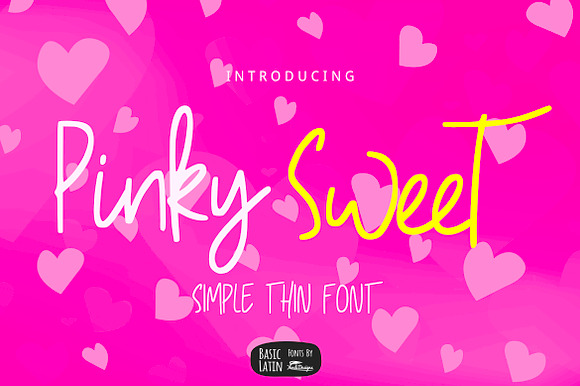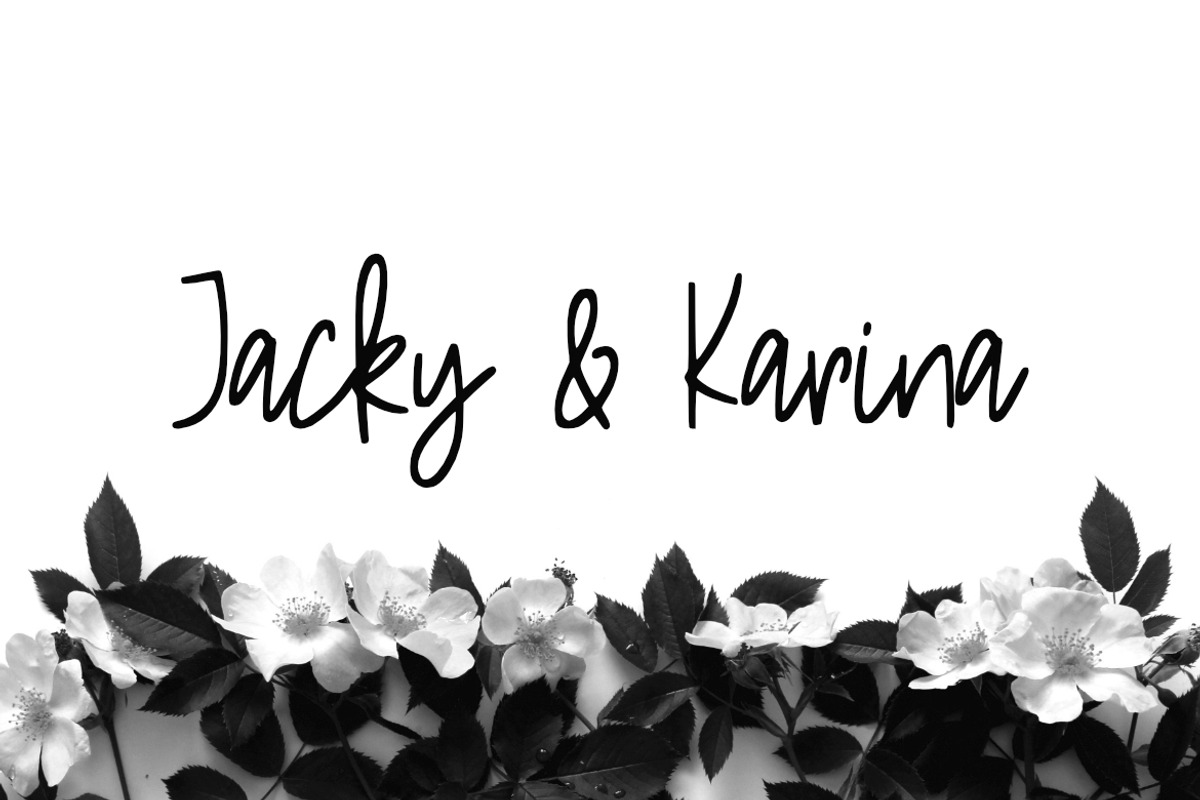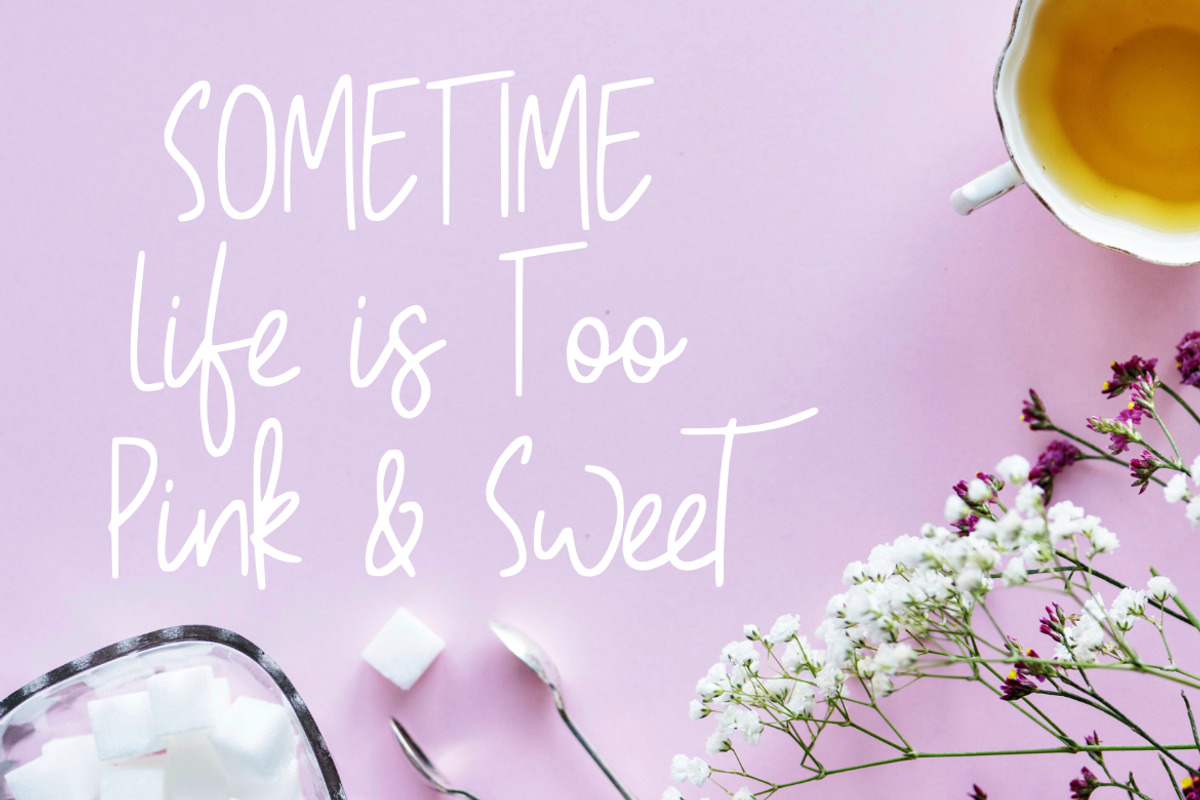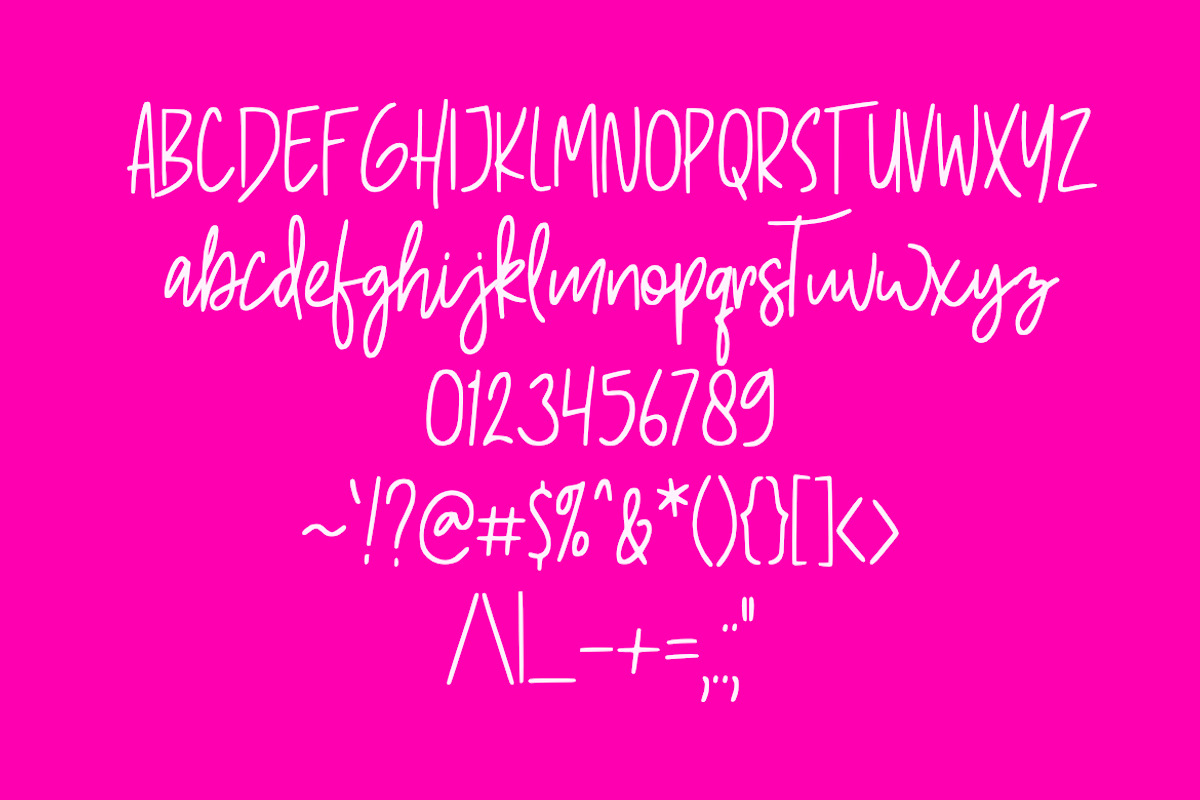
Pinky Sweet Cute Font
Pinky Sweet Script Font
Simple cute script font , suitable for many project, signature , quotes, logo , doodle, heading , title etc.
Why Pinky Sweet Cute Font is worth a look
Pinky Sweet Cute Font by YandiDesigns fits naturally into Branding, posters, packaging, typography.